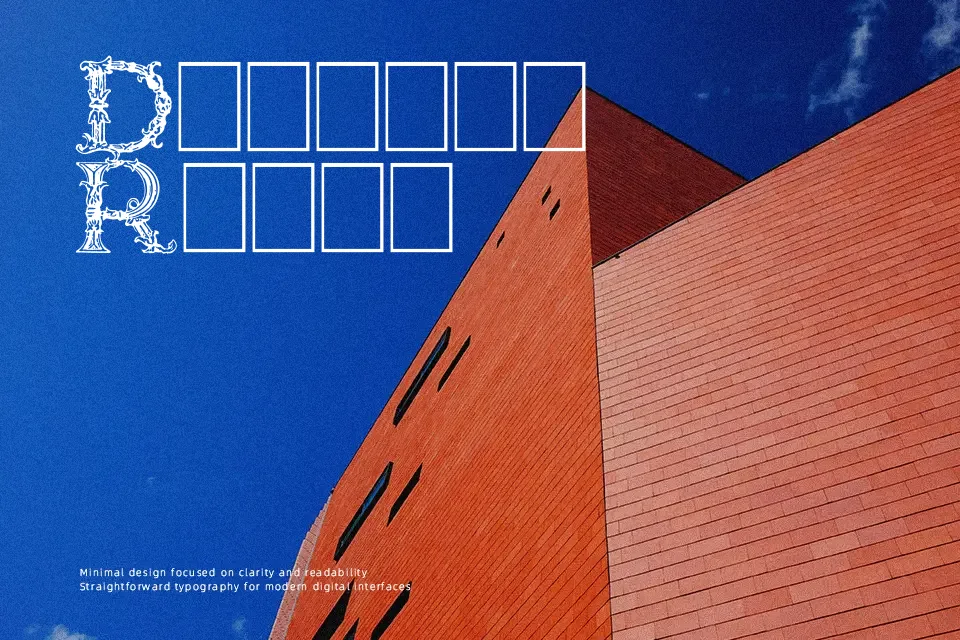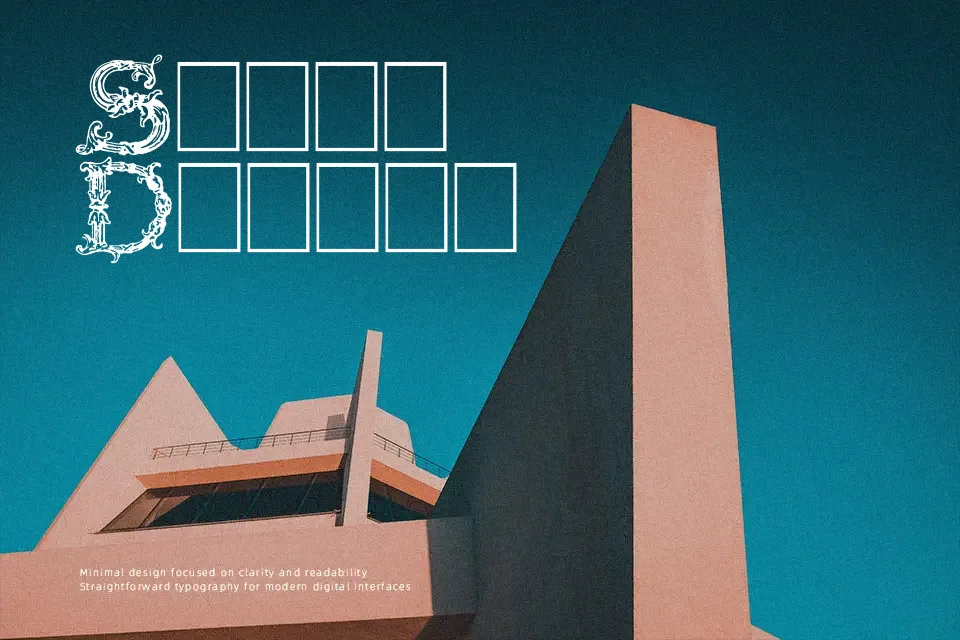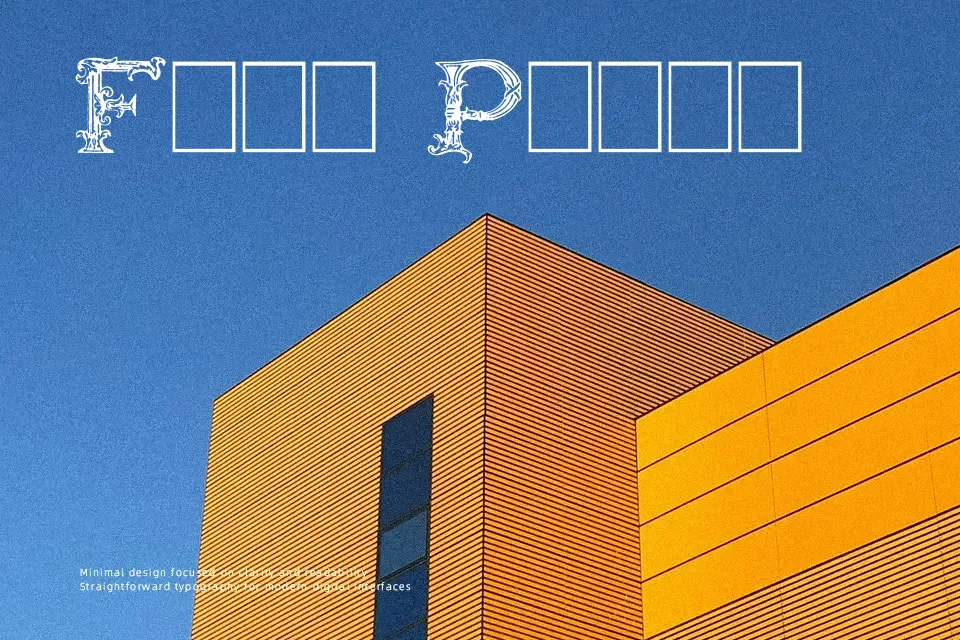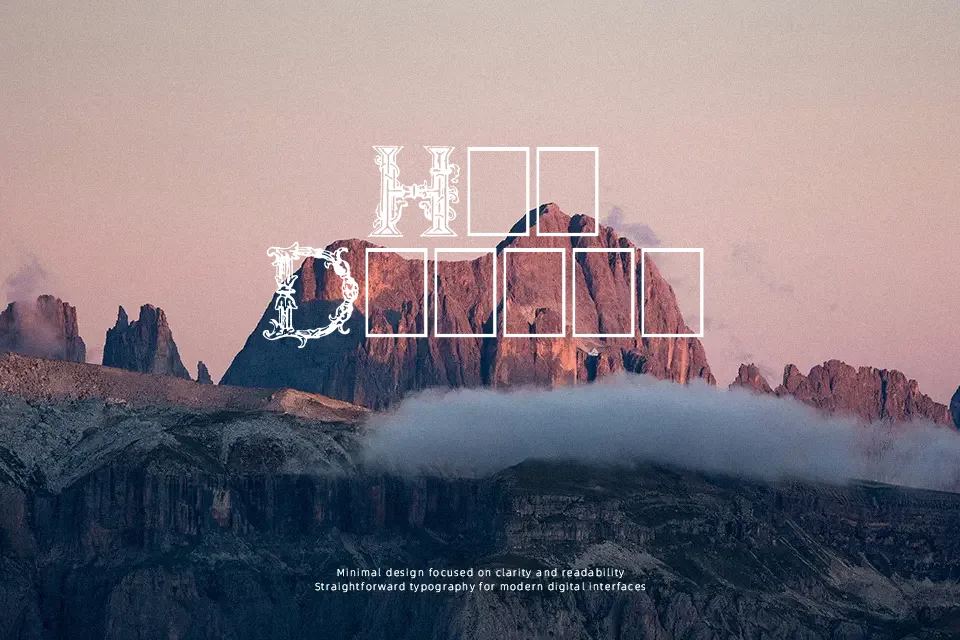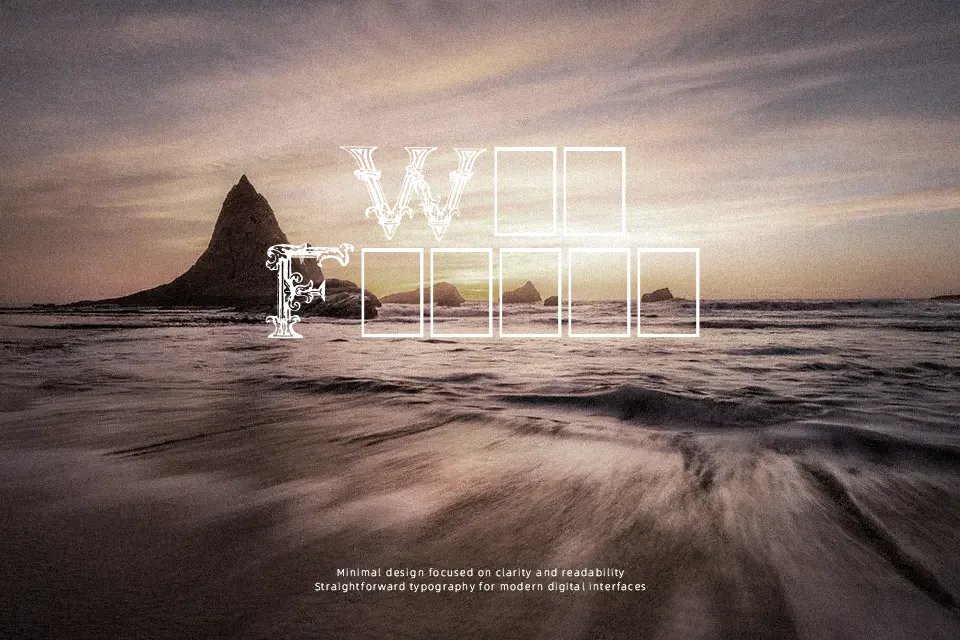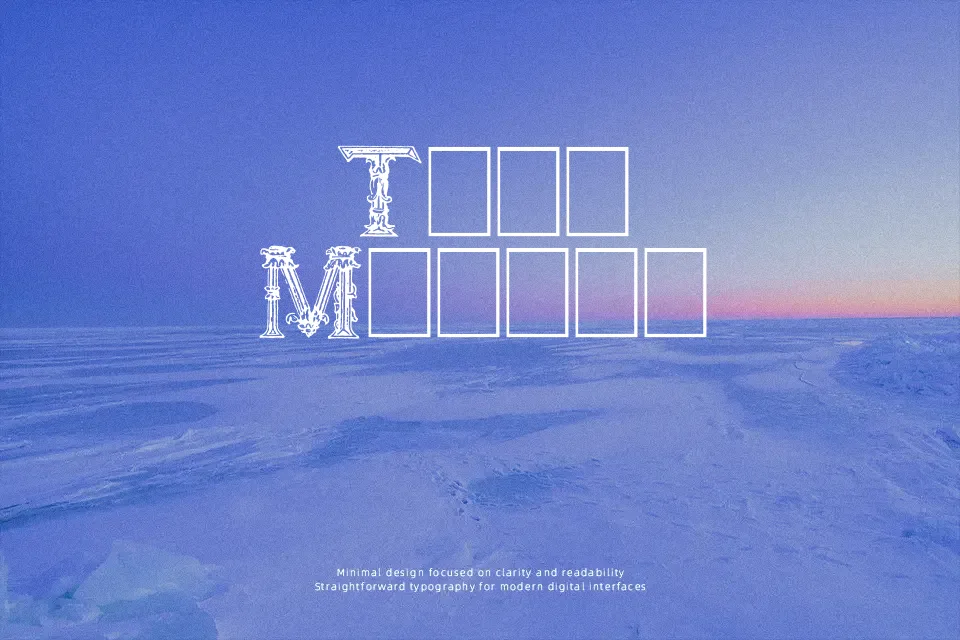
Burgoyne Initials Font
Burgoyne Initials is a highly decorative initials font built from elaborate, medieval-inspired capitals with strong vertical strokes, intricate curls, and tight internal detailing. The letters read best at larger sizes, where the ornament has room to breathe and the shapes feel more like illustrated tiles than simple glyphs. This gives it a ceremonial, storybook tone that works well for opening pages, title cards, or fantasy branding that needs one or two showpiece letters rather than dense text. It tends to overwhelm small captions or long paragraphs, so it works best when used sparingly alongside a simpler supporting typeface. Designers who enjoy historical or fantasy aesthetics will likely find it a useful accent rather than an everyday workhorse.
Drop caps in editorial layouts
Fantasy or historical book covers
Event posters with ornamental initials
Body text or long paragraphs
Small UI labels or mobile interfaces
Minimalist or tech-focused branding
Perfect for branding, editorial, and headline, with a artistic and decorative style.